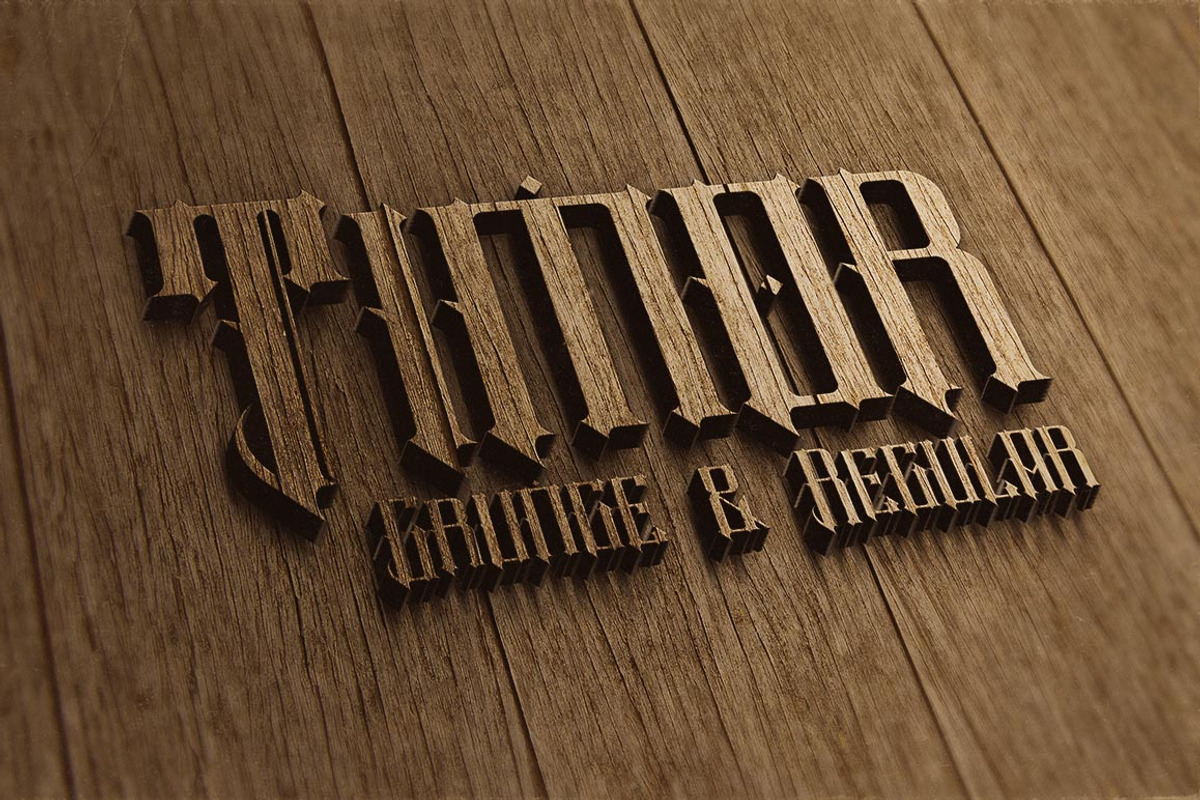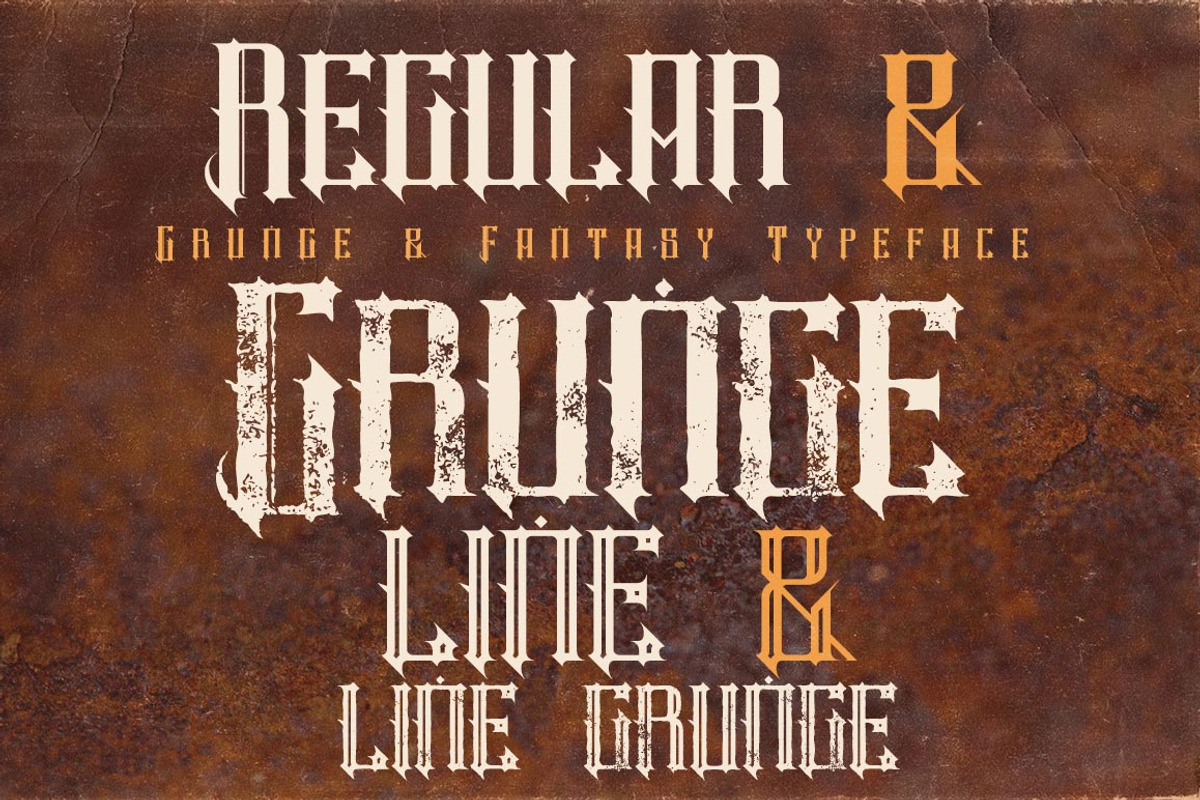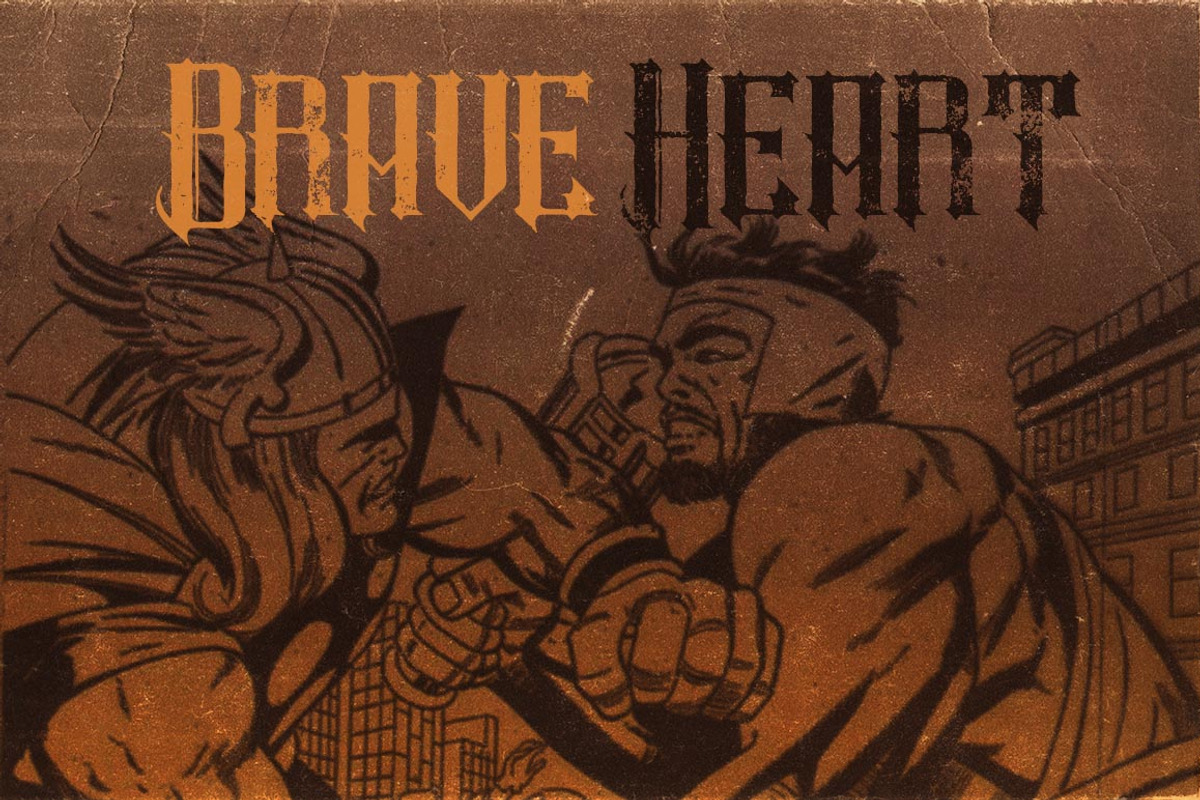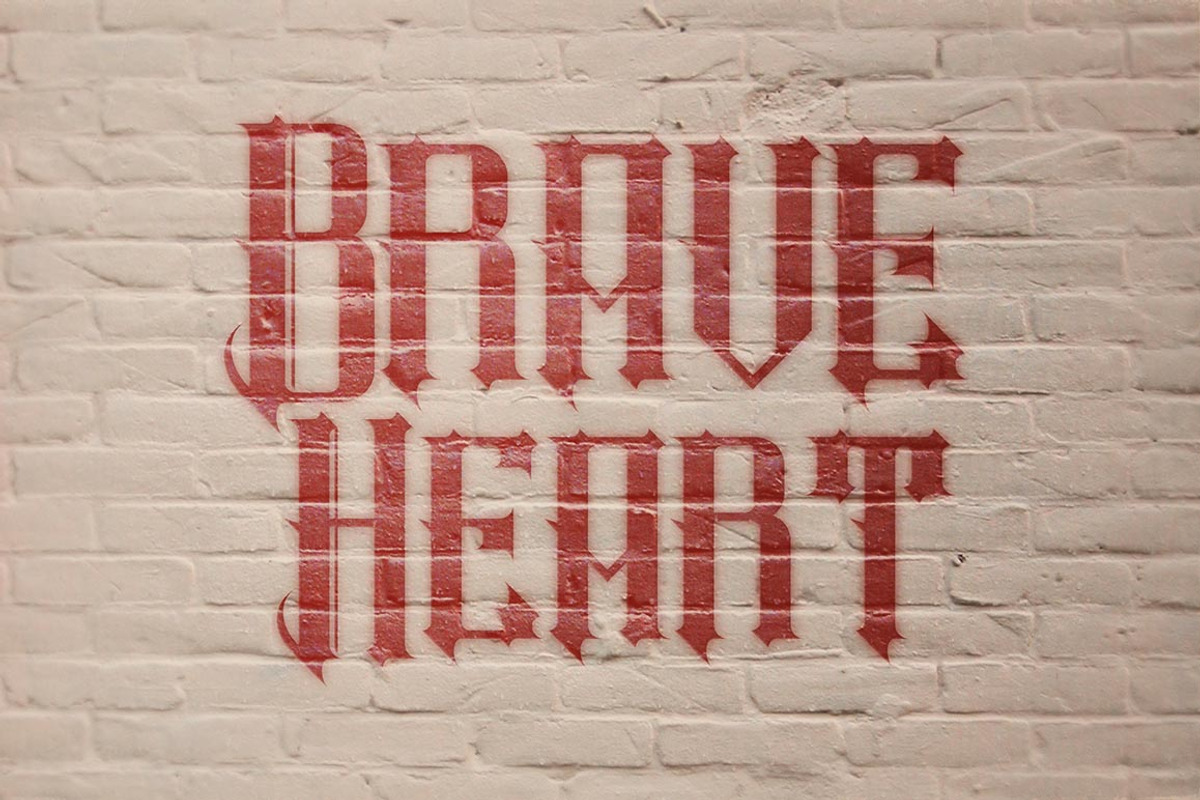
Timor - Vintage Style Font
Timor - Vintage Style Font by JumboDesign is a font selected for branding, posters, packaging, typography.
Why Timor - Vintage Style Font is worth a look
Timor - Vintage Style Font by JumboDesign fits naturally into Branding, posters, packaging, typography.